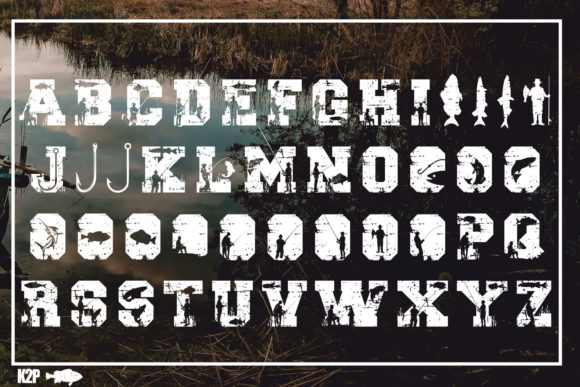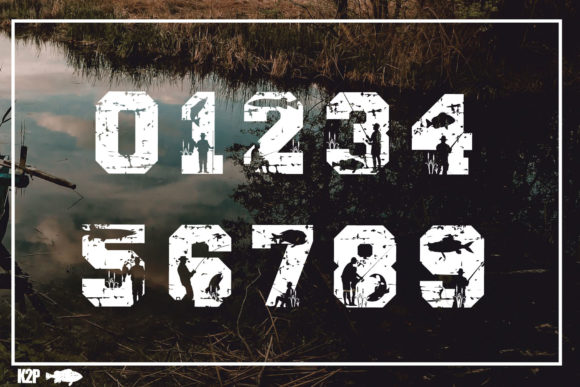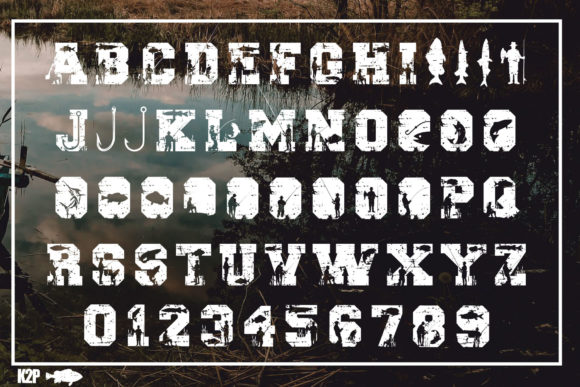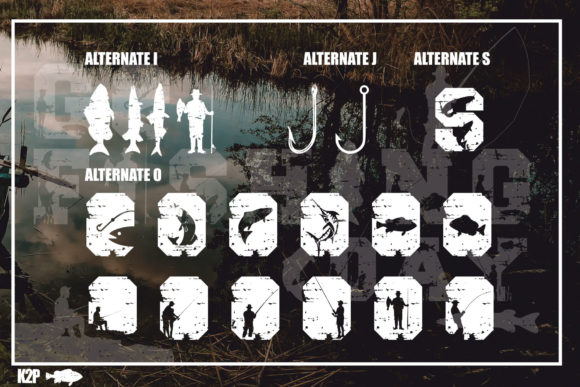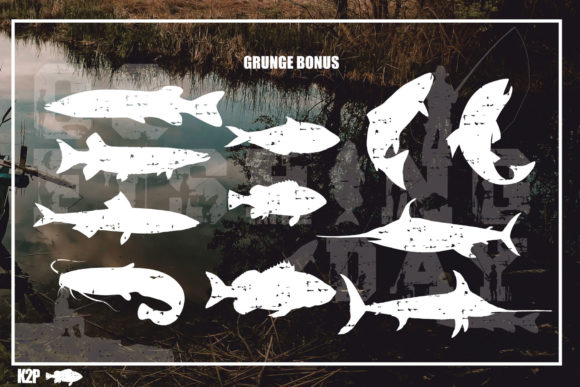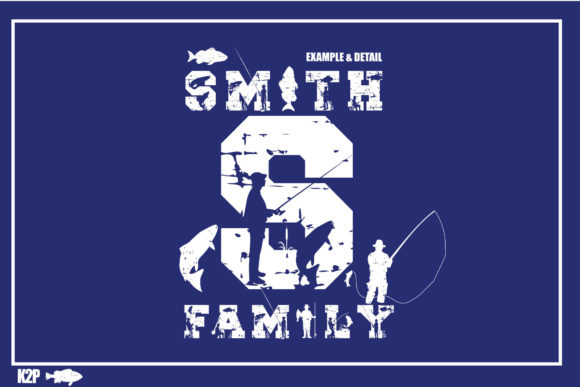
Introduction to Go Fishing Day Font Font
Fonts play a crucial role in design, and the Go Fishing Day Font font is a typeface that brings both character and versatility to any project. Whether you’re working on a branding project, a website, or a print design, the Go Fishing Day Font font offers a unique style that can elevate your work.
Go Fishing Day is a bold and assertive decorative font.
It is perfect for various design ideas related to fishing, camping, or both Have fun with this beautiful font, and explore its endless variations.
Key Features of Go Fishing Day Font Font
Why Choose Go Fishing Day Font Font?
The Go Fishing Day Font font is more than just a typeface – it’s a design tool that helps you communicate your message with style and clarity. Its unique character set and versatile design make it suitable for a wide range of applications, from elegant invitations to bold headlines.
With its carefully crafted letterforms and balanced proportions, the Go Fishing Day Font font ensures readability and visual appeal across all mediums.
What makes Go Fishing Day Font font special?
The Go Fishing Day Font font stands out with its unique design, exceptional readability, and versatility across various design applications.